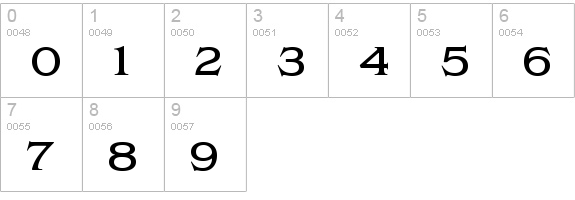
Griffon Semibold is a sub-bold, structured variant in the Griffon typeface family \xE2\x80\x94 well suited to sub-headlines and emphasised passages.
Griffon Semibold font is a beautifully crafted typeface that exudes a sense of elegance and sophistication. Its bold and commanding presence makes it perfect for headlines, titles, and other prominent text. With its clean lines and modern aesthetic, Griffon Semibold font strikes the perfect balance between classic and contemporary design. This versatile font is ideal for a wide range of projects, from branding and packaging to posters and invitations. Its distinct personality adds a touch of flair to any design, making it stand out from the crowd. Whether you're creating a sleek corporate identity or a stylish editorial layout, Griffon Semibold font is sure to make a statement. Best of all, Griffon Semibold font is available for free download at FontsMarket.com. This means you can easily access this high-quality typeface without breaking the bank. Don't miss out on the opportunity to elevate your designs with the timeless appeal of Griffon Semibold font. Download it today and start creating stunning visuals that leave a lasting impression.